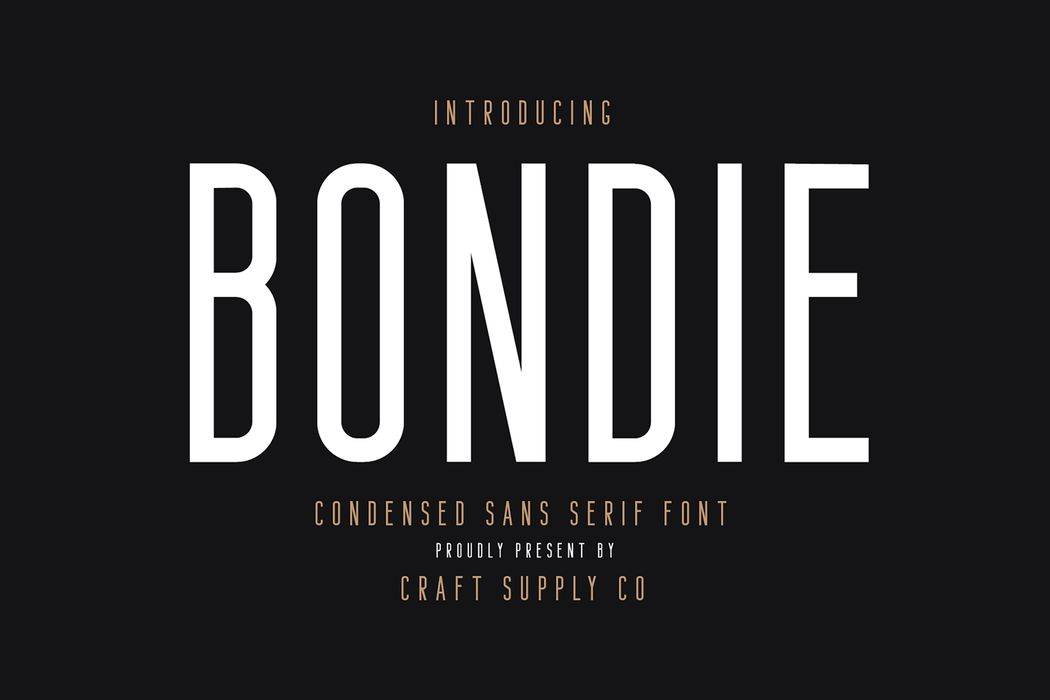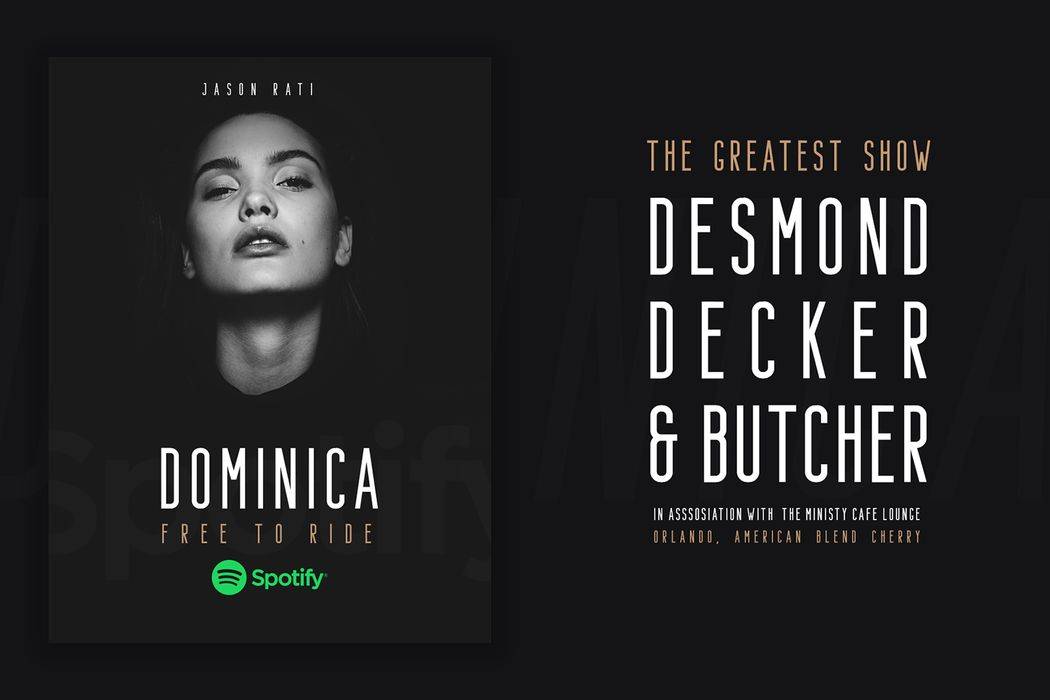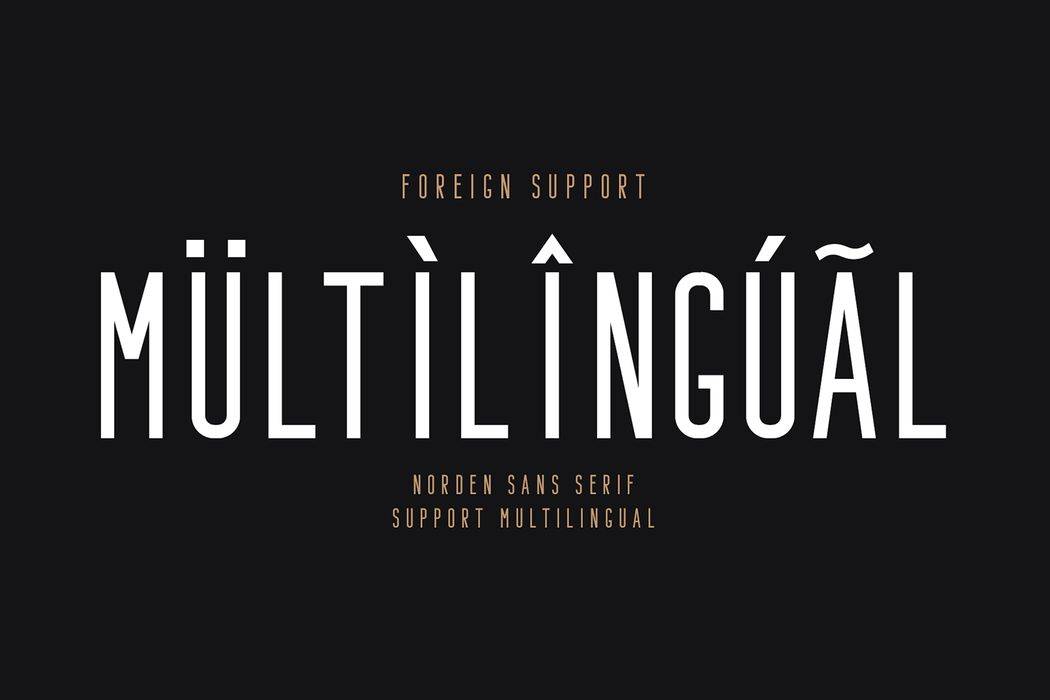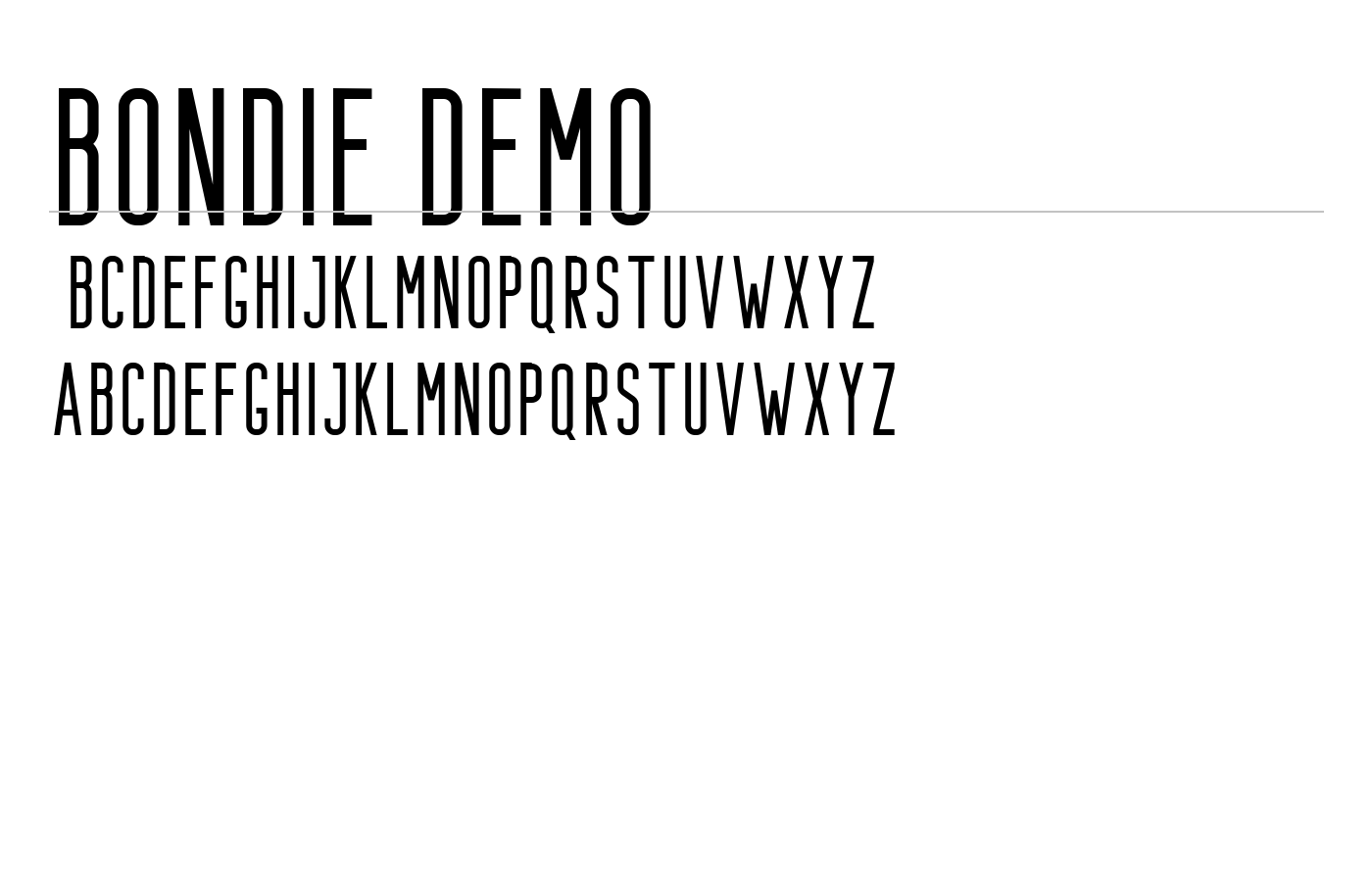
Bondie is a tall, narrow sans serif font with a modern and clean aesthetic, characterized by its condensed width and uniform stroke weight that creates a sleek, minimalist look. Its all-uppercase design and geometric precision make it ideal for striking headlines, logos, and branding that require a bold yet elegant presence. This font works well in fashion, editorial, and contemporary design projects where clarity and style are key.
Bondie Font
About Bondie Font